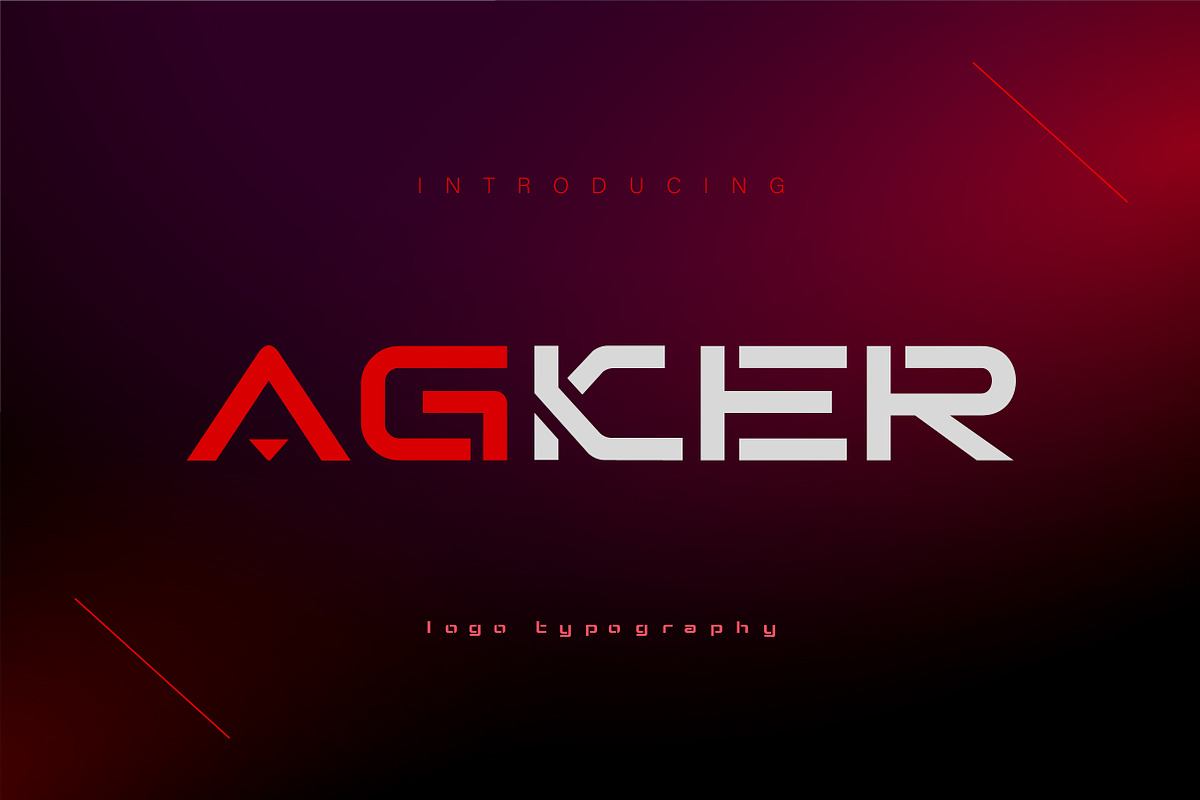
AGKER Font Free Download is a bold display typeface designed by geengraphy. Its unique and stylish characters make it suitable for various design projects, including web designs, business cards, and other creative endeavors that require a distinctive touch. You can download AGKER Font Free Download for personal use to explore its features. For commercial applications, please ensure you purchase the appropriate license to comply with usage rights